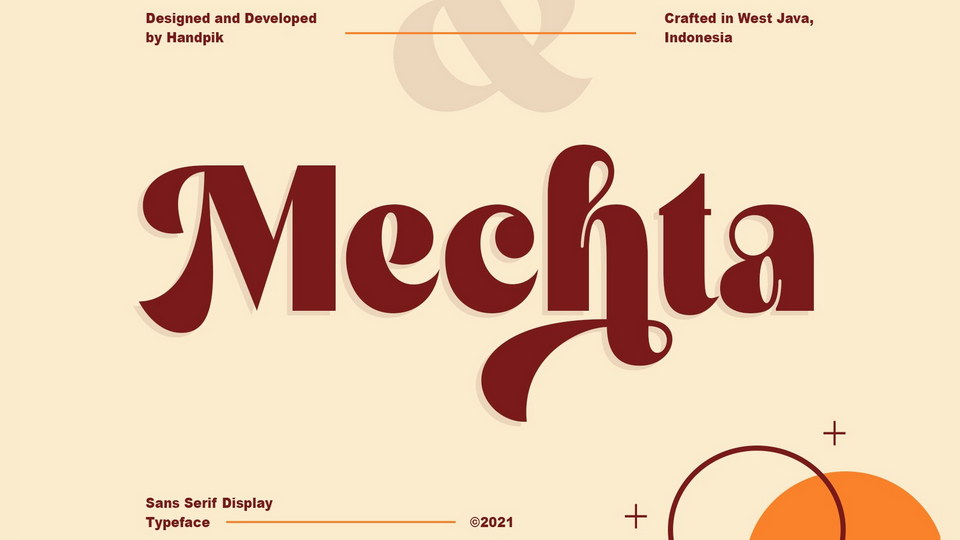
Download Mechta font, a high contrast display typeface that has a classic, feminine and elegant style. Mechta font is perfect for many different projects such as logos and branding, wedding designs, social media posts, advertisements, fashion, special events or anything.
Designer: Handpik Design